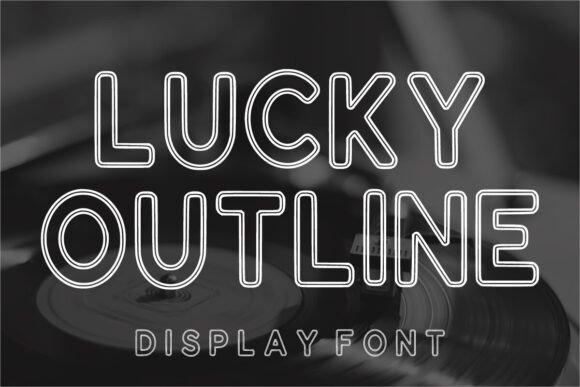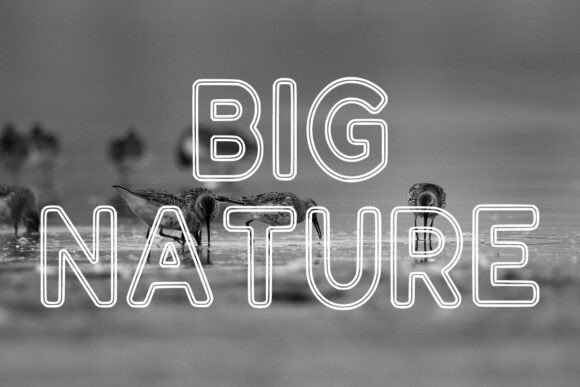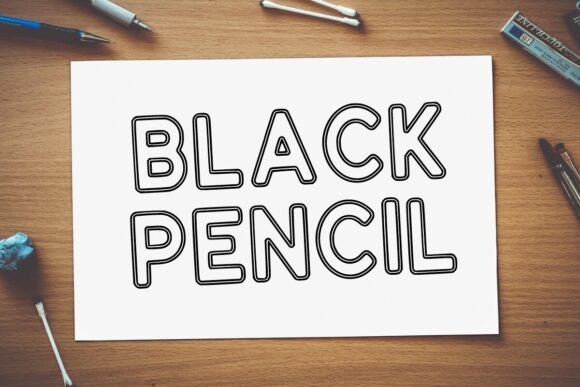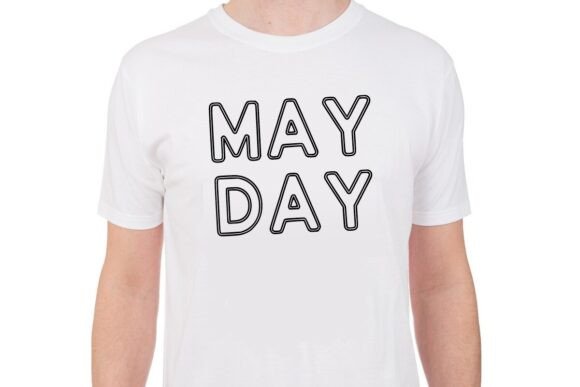
Lucky Outline Font
About the Lucky Outline Font
Welcome to the world of Lucky Outline Font, a typeface that will inspire your next great project. Lucky Outline is a fun and double outline display font with rounded lettering. It is suitable for any winter and holiday branding project, product packaging, invitations, quotes, t-shirts, labels, posters, or anything that needs a touch of joy.
Lucky Outline’s playful, rounded forms make it ideal for headlines, short text blocks on posters, and packaging designs where a cheerful, eye-catching aesthetic is desired. It works particularly well for brands targeting a younger demographic or those promoting festive or celebratory themes. Avoid using it for body text or lengthy paragraphs; its bold outlines reduce readability at smaller sizes.
Consider pairing Lucky Outline with a clean sans-serif like Open Sans for a balanced contrast, or a more playful script font for a consistent festive feel. A geometric sans-serif could also work well for a modern, slightly quirky look.
The font projects a fun, friendly, and slightly nostalgic personality, making it well-suited for projects emphasizing joy, celebration, or a lighthearted brand image.
Lucky Outline Font Usage Examples
Lucky Outline Font Example